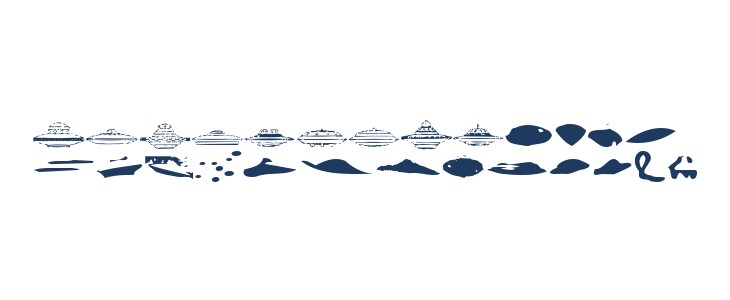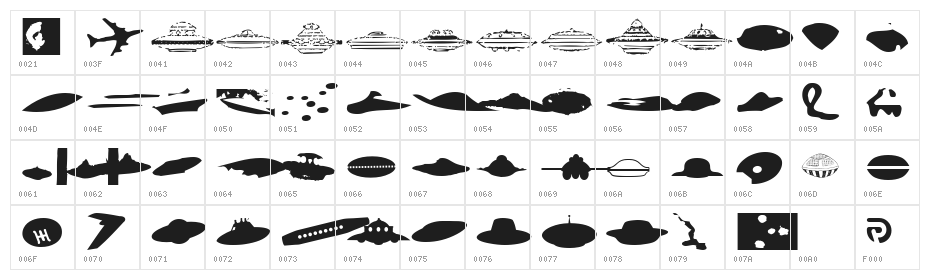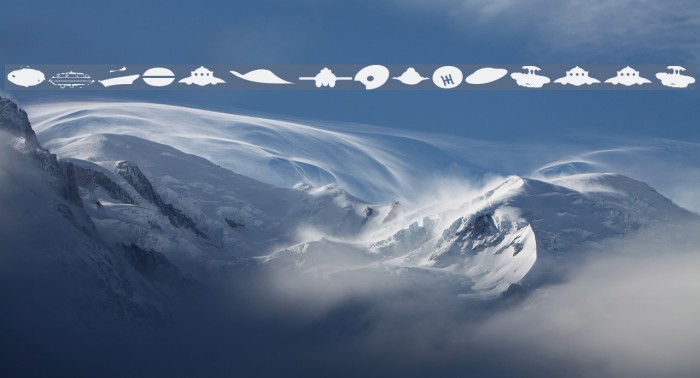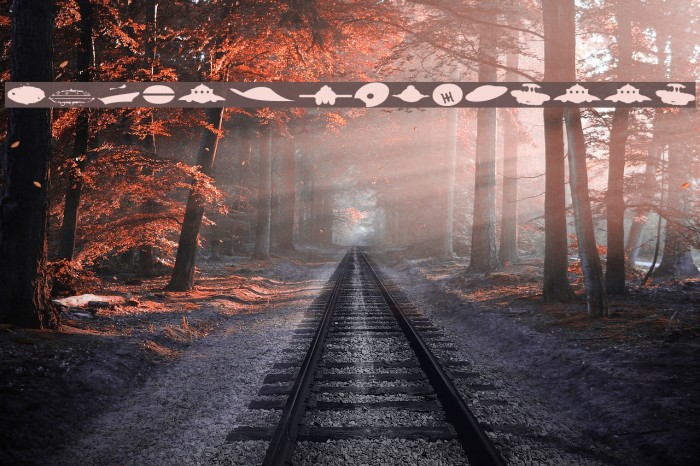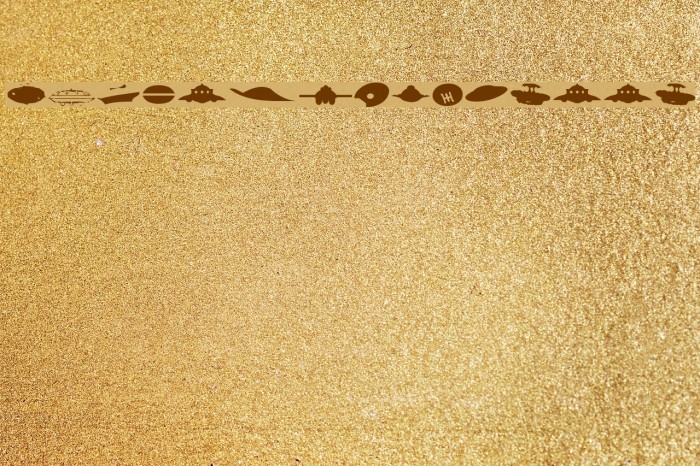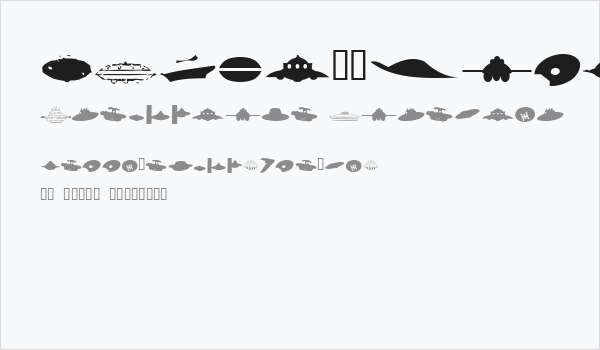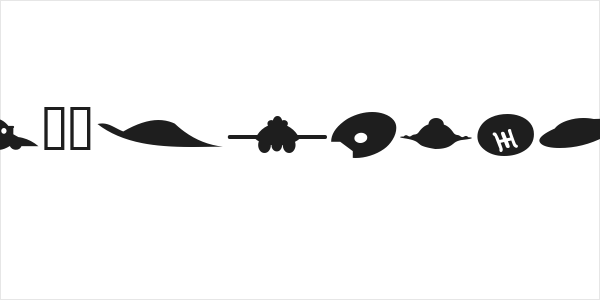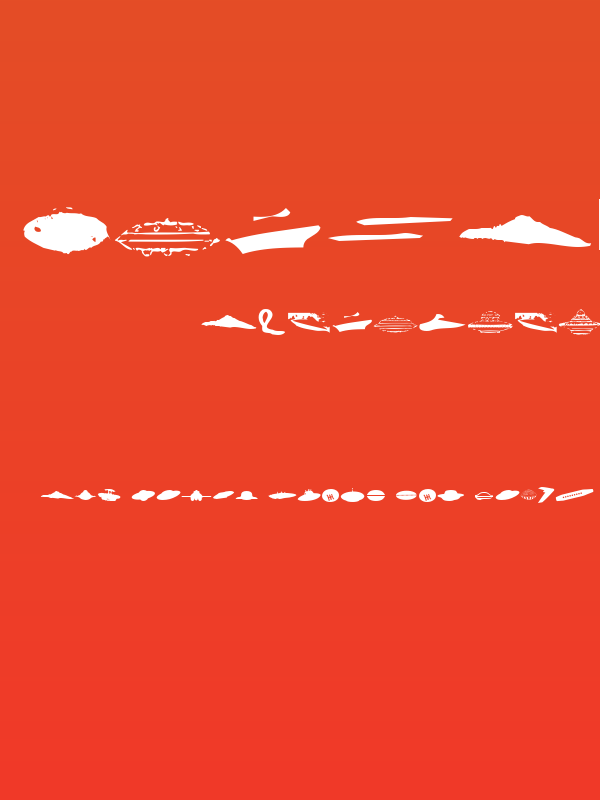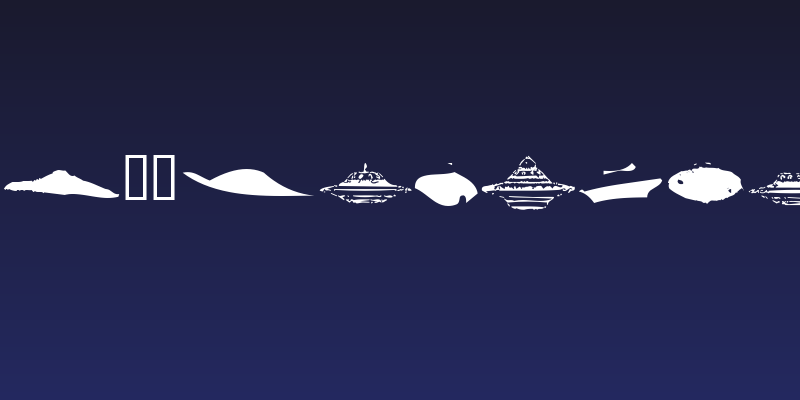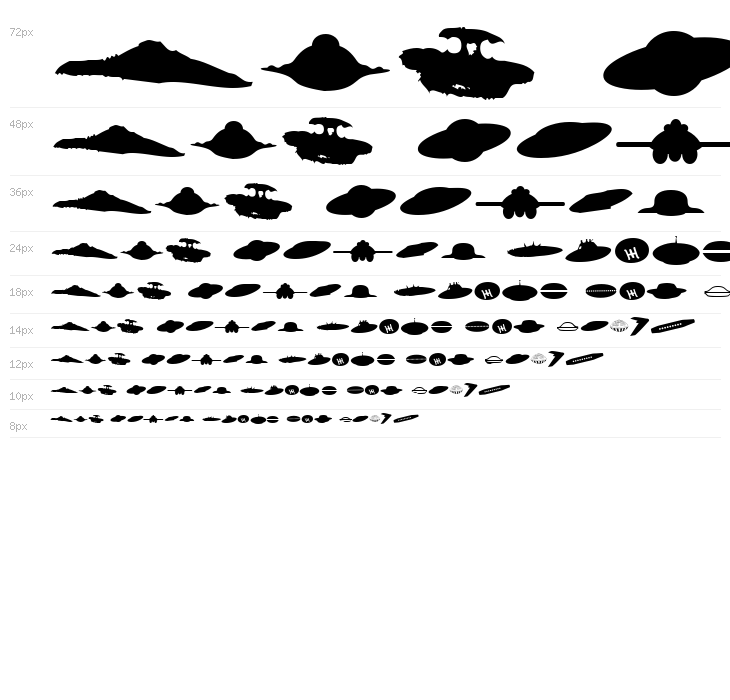
UFOnt51Silhouette Font
UFOnt51Silhouette Description
This font is a unique collection of UFO and alien-themed silhouettes, featuring a variety of spacecraft and extraterrestrial designs. Each character is represented by a distinct and imaginative UFO shape, ranging from classic flying saucers to more abstract and creative interpretations. The designs are bold and striking, making them ideal for projects that require a touch of science fiction or fantasy. The silhouettes are filled with solid black, providing a strong contrast against lighter backgrounds. This font is perfect for themed events, posters, or any creative project that aims to capture the mystery and intrigue of outer space.
| Use Case | Logos, Posters, Creative Art |
| Proposed Projects | Ideal for science fiction posters, themed event invitations, creative art projects, and fantasy book covers. |